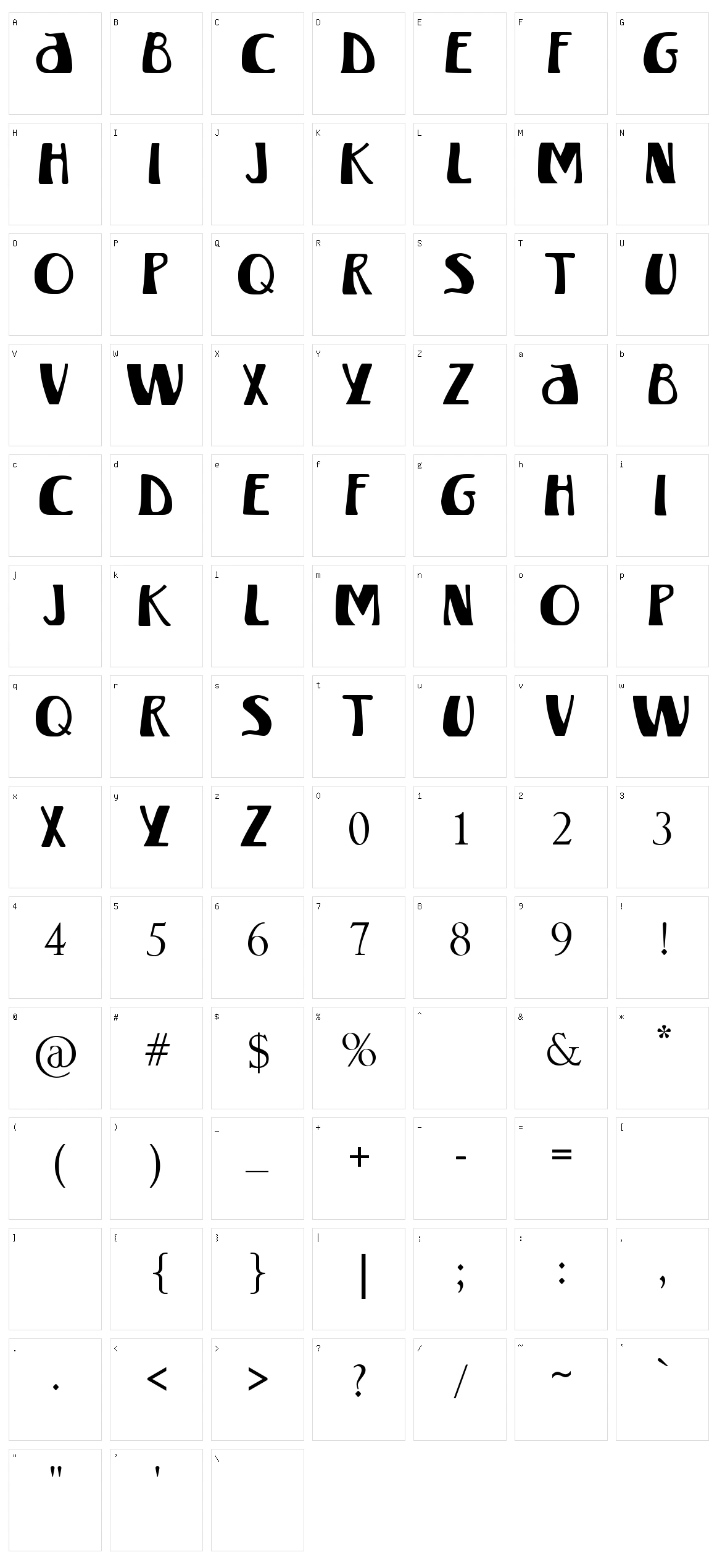
The free font Winterland is carefully designed by Nevan Orr, showcasing a thoughtful balance of creativity and usability and falls under the Groovy font style. When you download the ZIP file, it contains only 13.95 KB of font files, making it lightweight and quick to download. Please review the license details below to understand permitted usage and distribution rights. If license information is not available, we recommend using this font for personal projects only or contacting the author directly for commercial usage permissions.